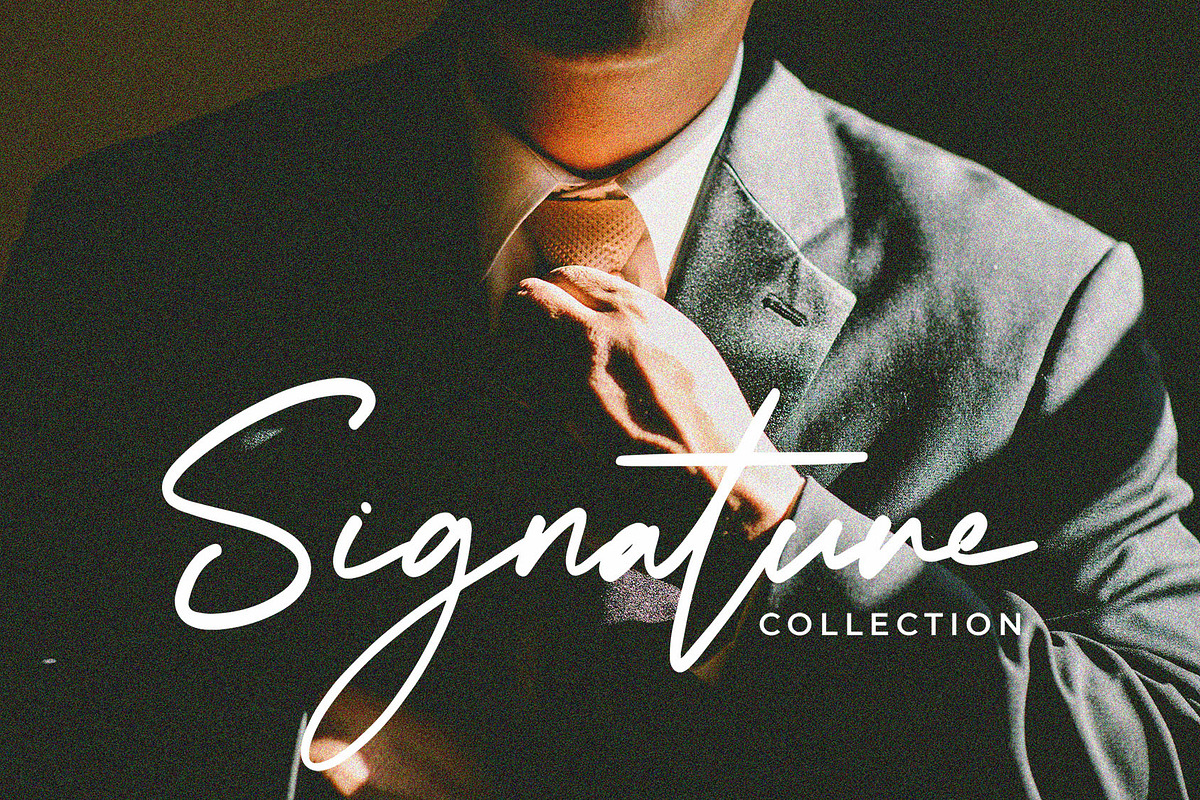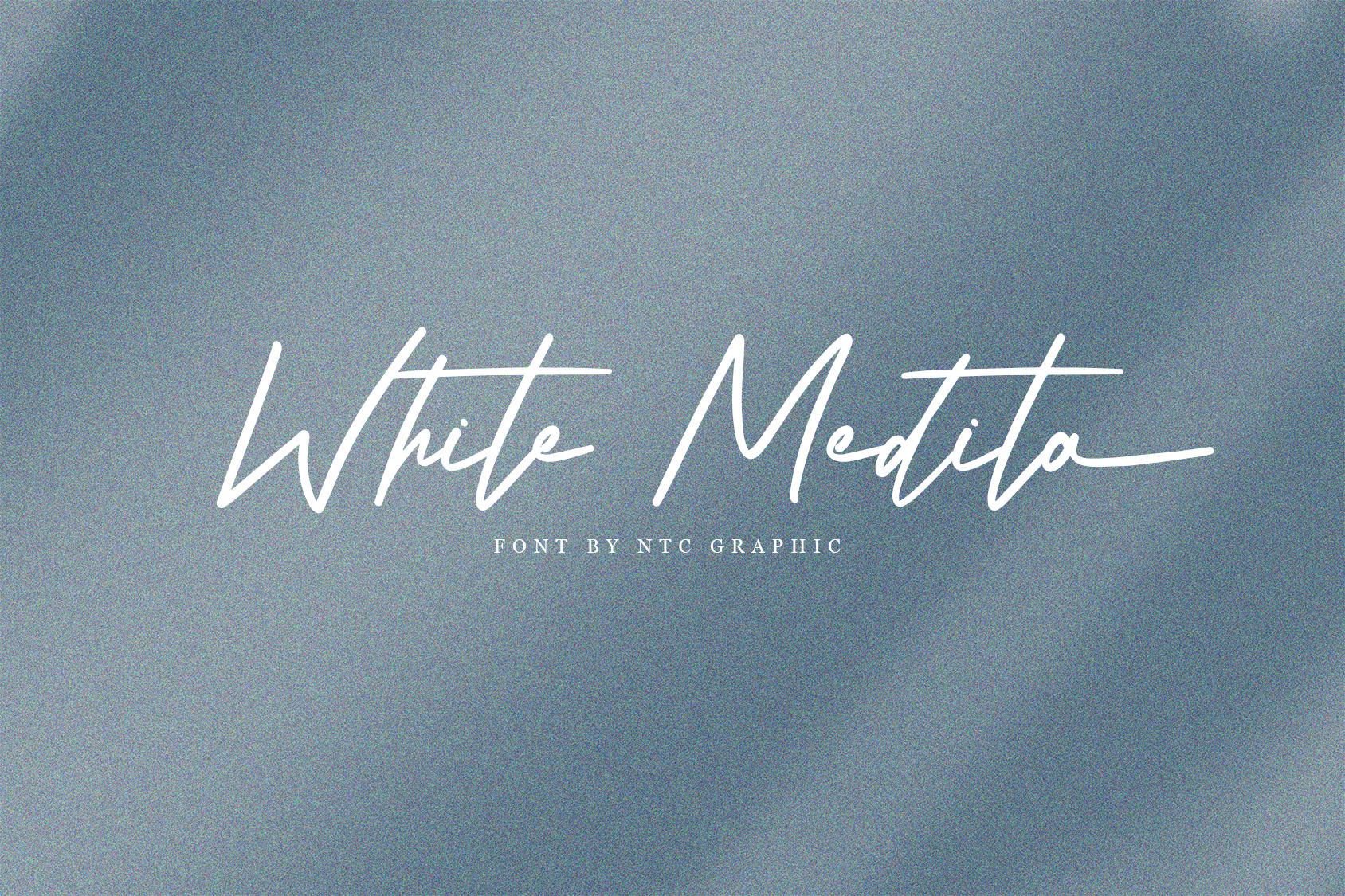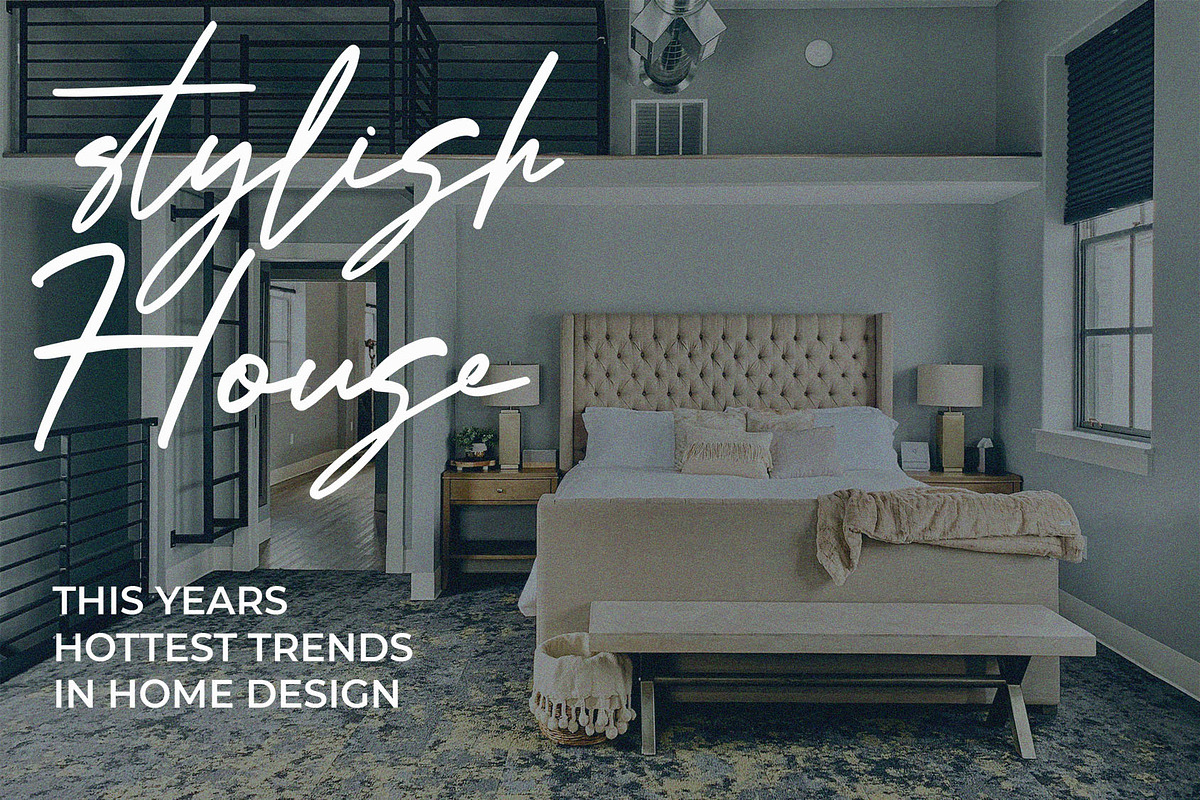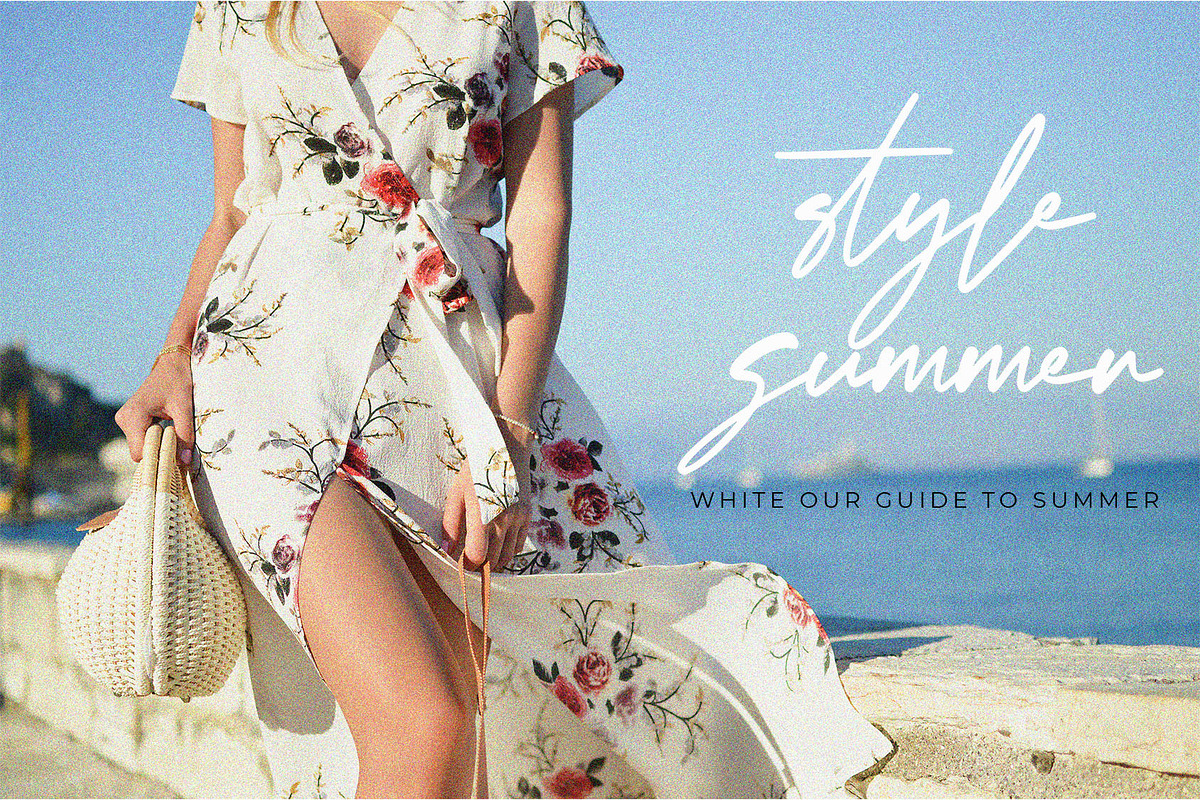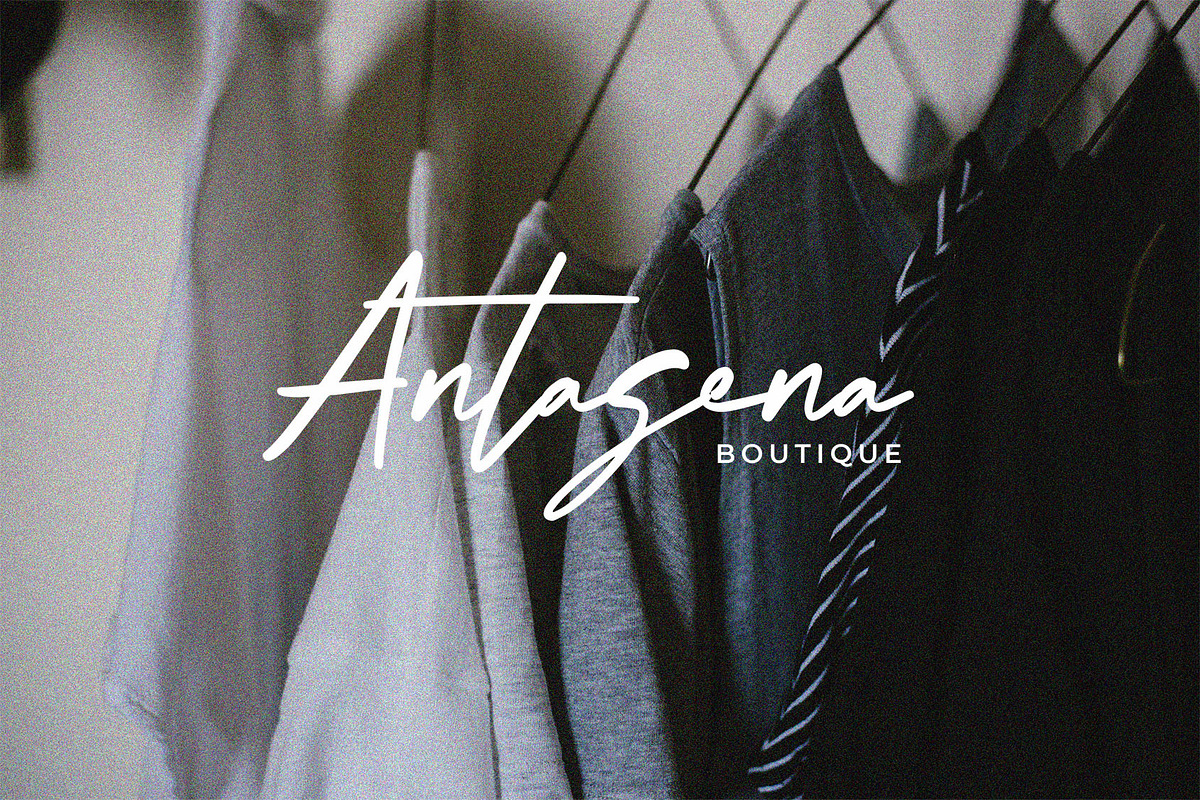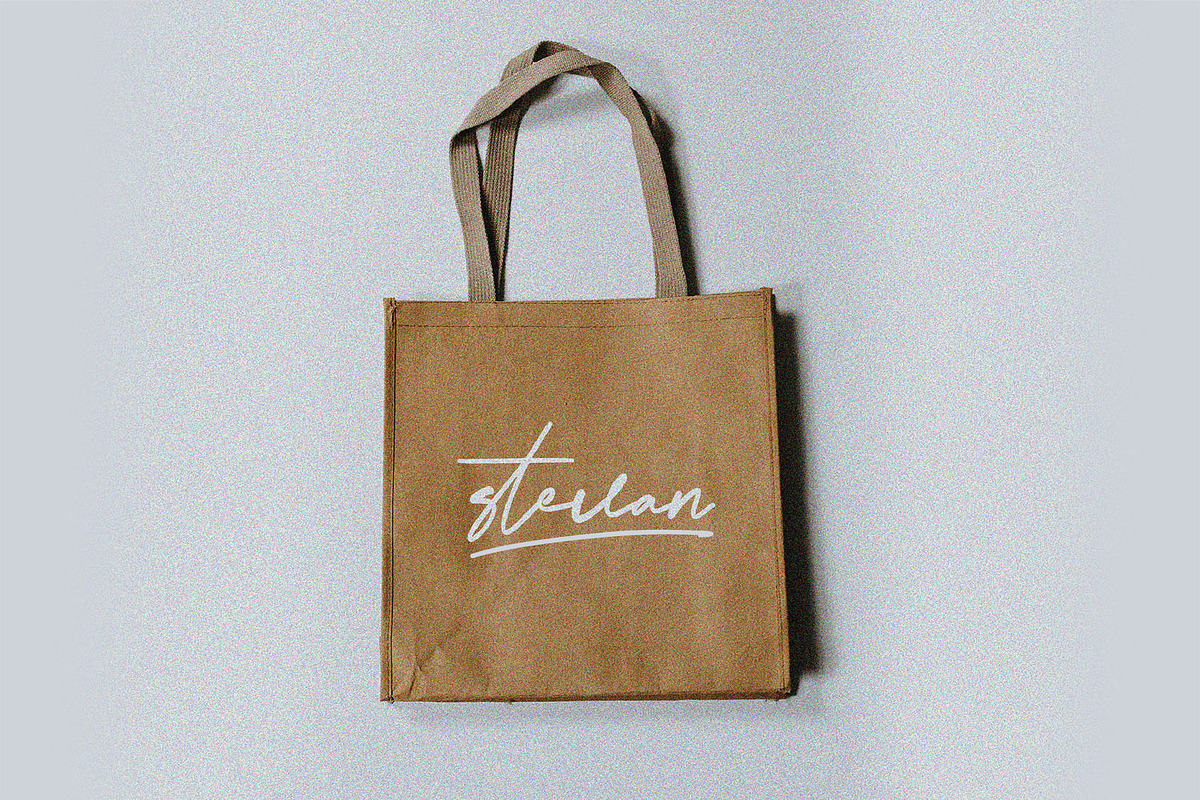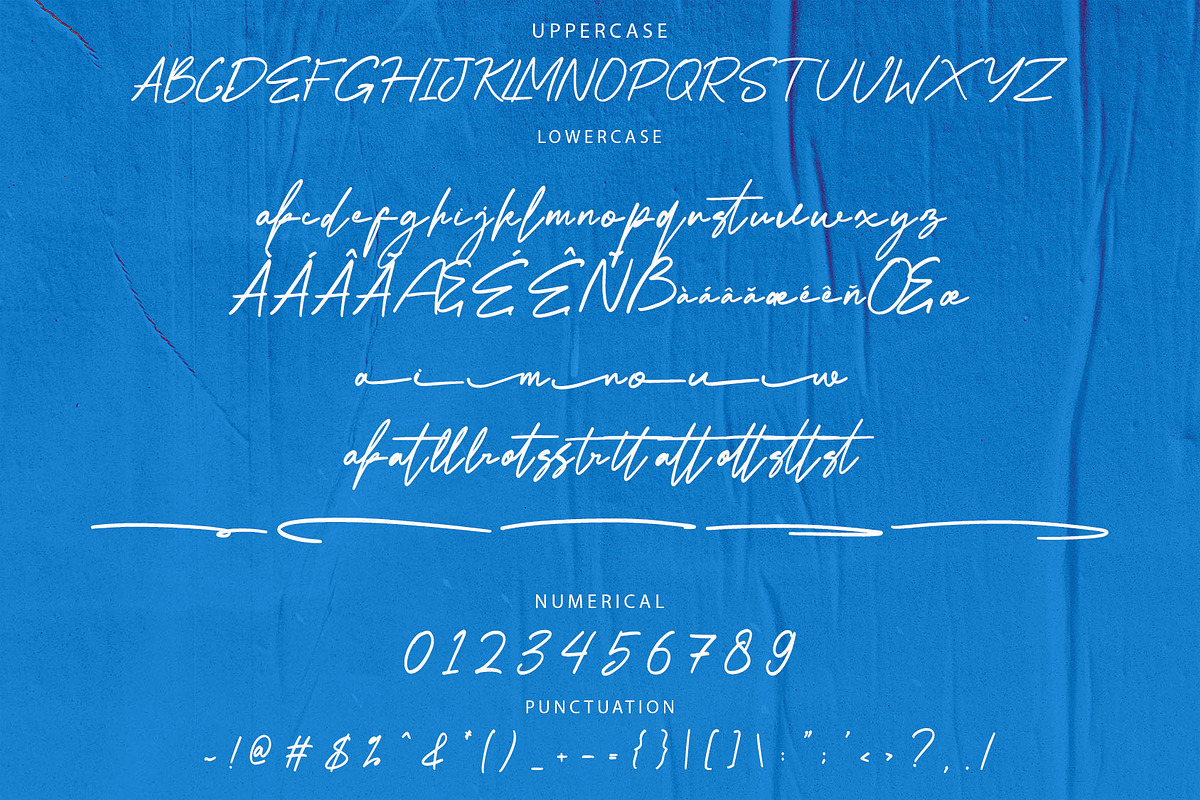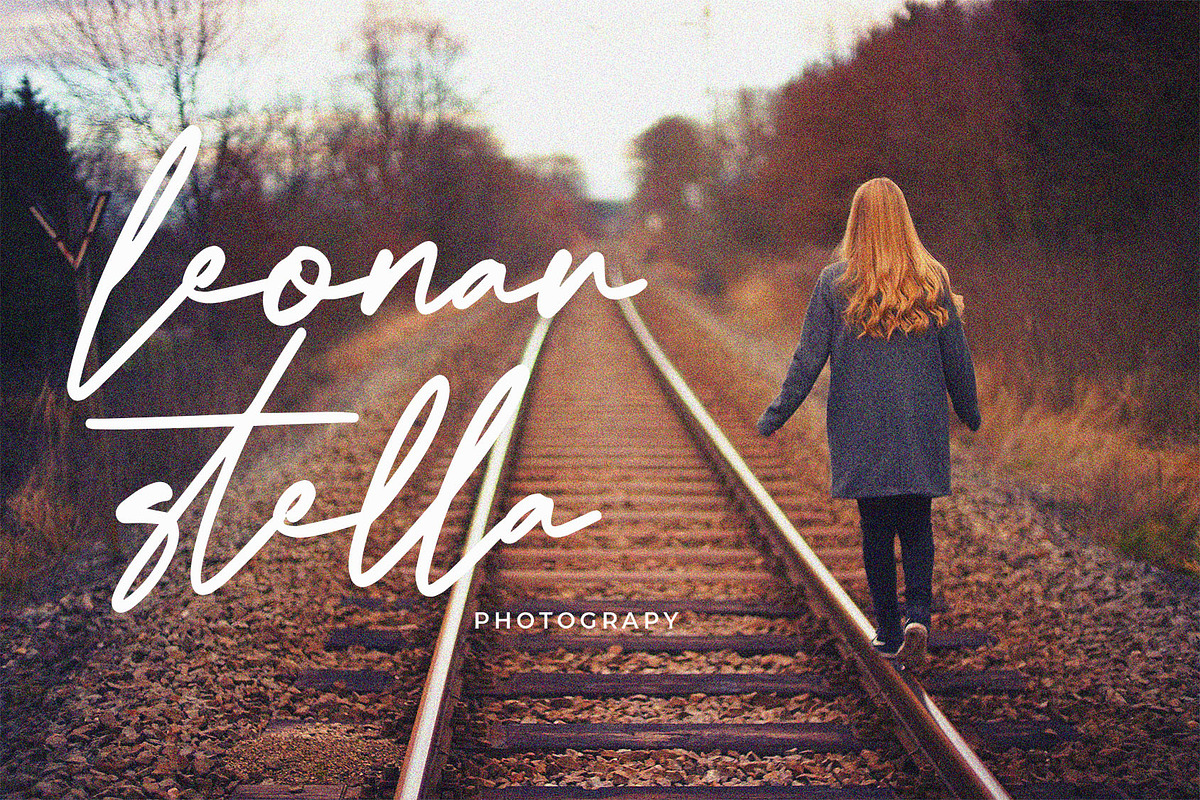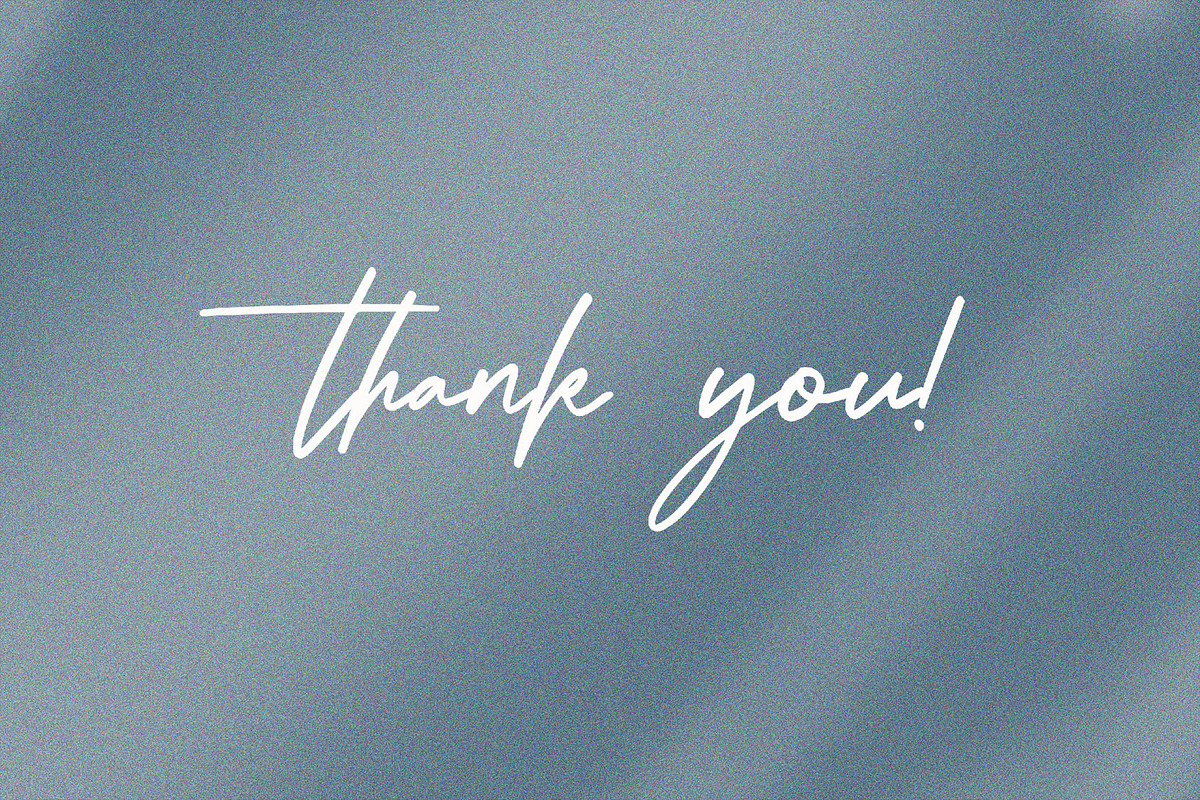
White Medita Brush Script Font
White Medita - Handwriting Brush Script Font
Introducing White Medita, a captivating script font with a dynamic handwriting brush style. Its beautifully crafted characters, with unique and flowing shapes, bring a natural and personal touch to your designs. Perfect for enhancing the aesthetic appeal of branding, packaging, invitations, and more, White Medita adds a stylish and artistic flair to any project.
- Includes ligatures, stylistic alternates, and swashes
- Multilingual support for diverse applications
Elevate your designs with the elegant and expressive White Medita brush script font!